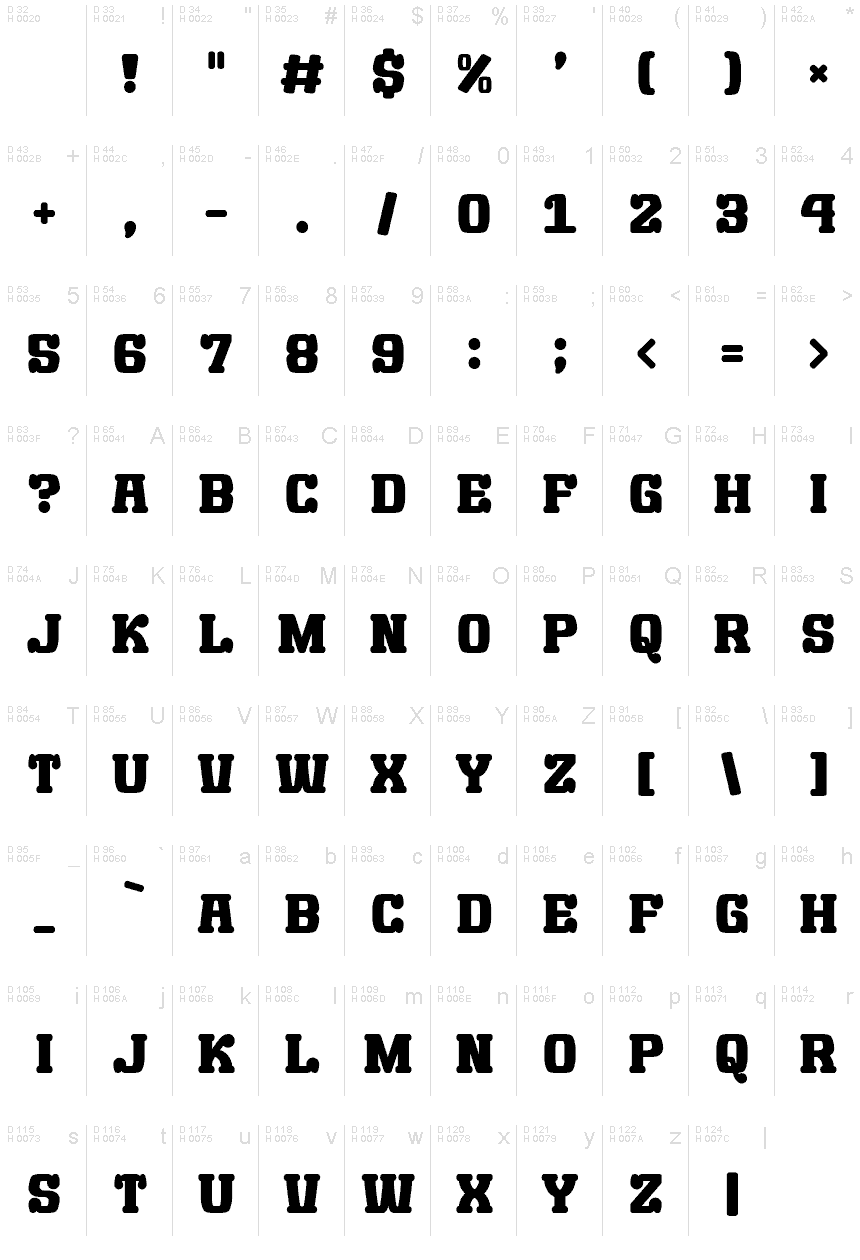
Salted Peanuts
Salted Peanuts font is a retro decorative display font designed by Goma Shin. It features a bold presence, vintage appeal, stable appearance, and traditional influences. The style is closer to but not identical to slab serifs while the overall flow of characters reminds of sans fonts in general. The visual presence of key handwriting elements tops this stylish modern premium typeface.